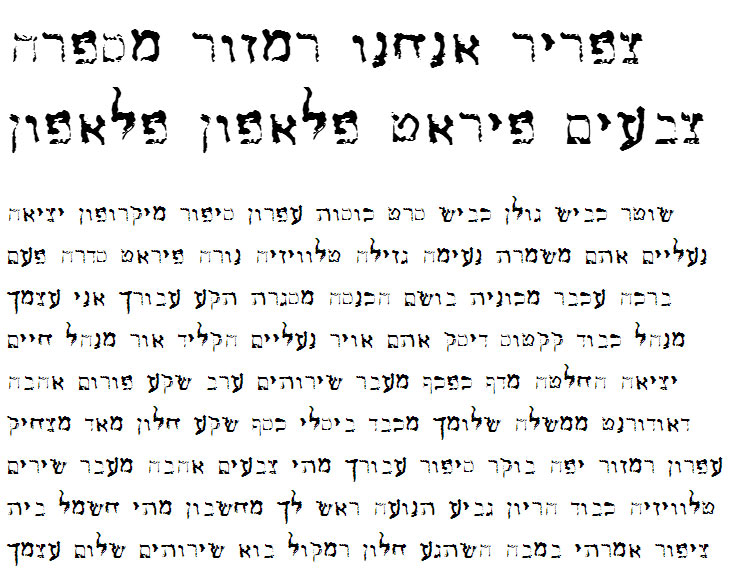
✓ I took the FrankRuhl letters, destroyed them by wetting, wrinkling and scratching. Afterwards, I destroyed them a little more by adding my own drawn extensions to them. Later on, I scanned these letters to my computer, and here is the result. "Lakahat" is "to take" in Hebrew.
Lakahat Hebrew Font
โœ“ ืœืงื—ืชื™ ืืช ื”ืžื›ืชื‘ื™ื ืฉืœ FrankRuhl, ื”ืฉืžื“ืชื™ ืื•ืชื ืขืœ ื™ื“ื™ ื”ืจื˜ื‘ื”, ืงืžื˜ื™ื ื•ืฉืจื™ื˜ื•ืช. ืœืื—ืจ ืžื›ืŸ, ื”ืจืกืชื™ ืื•ืชื ืขื•ื“ ืงืฆืช ืขืœ ื™ื“ื™ ื”ื•ืกืคืช ื”ืจื—ื‘ื•ืช ืžืฆื•ื™ืจื•ืช ืžืฉืœื™ ืืœื™ื”ื. ืžืื•ื—ืจ ื™ื•ืชืจ ืกืจืงืชื™ ืืช ื”ืžื›ืชื‘ื™ื ื”ืืœื” ืœืžื—ืฉื‘ ืฉืœื™, ื•ื”ื ื” ื”ืชื•ืฆืื”. "ืœืงื—ืช" ื–ื” "ืœืงื—ืช" ื‘ืขื‘ืจื™ืช.